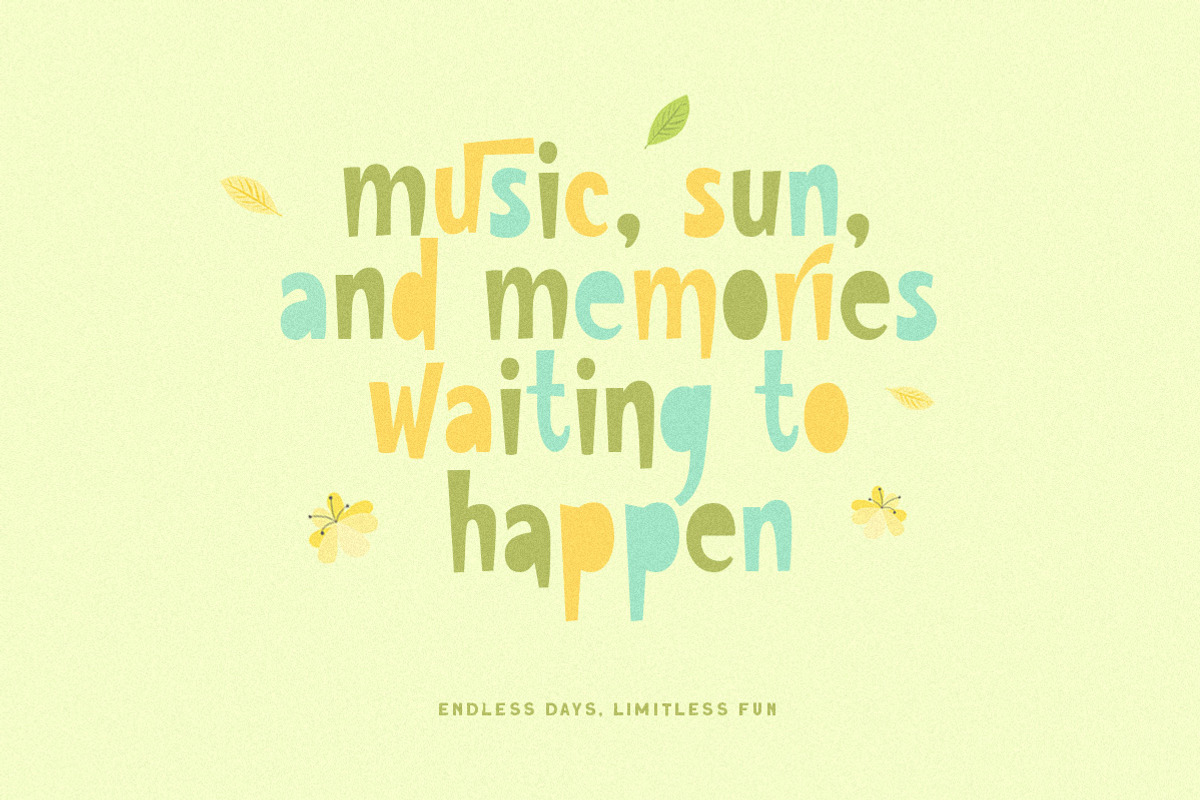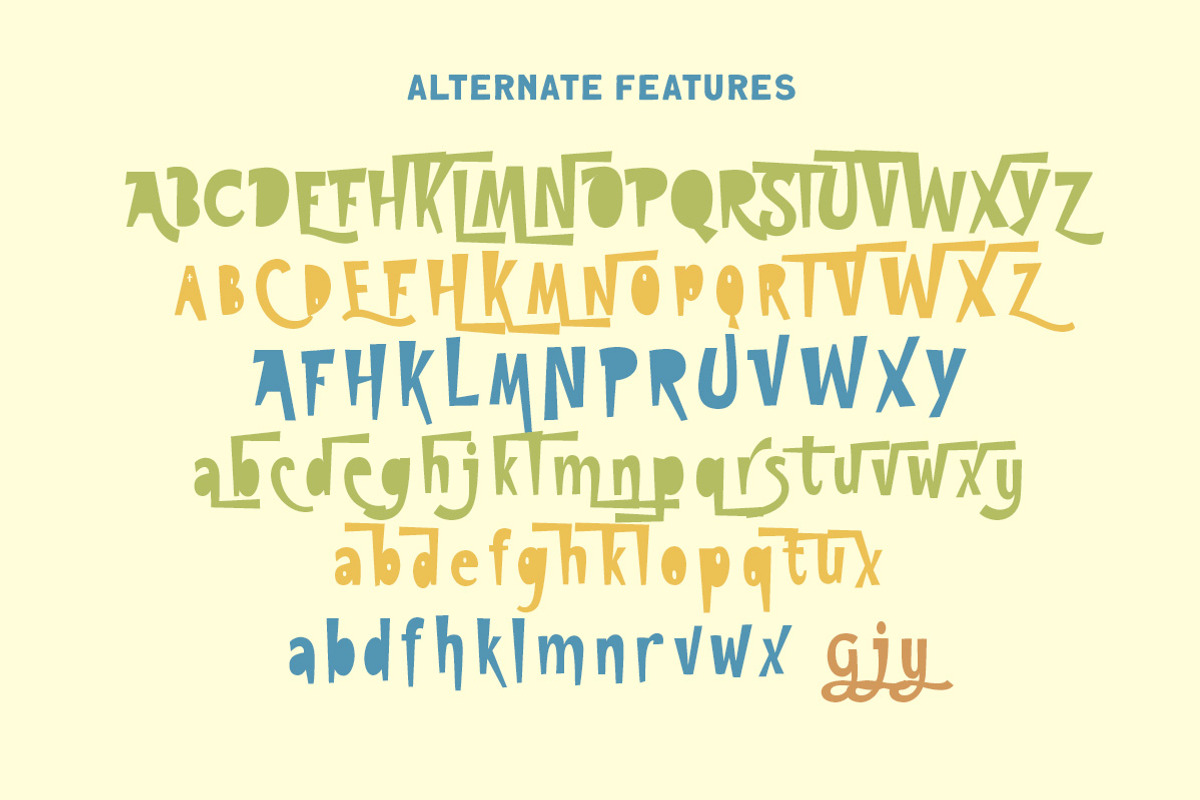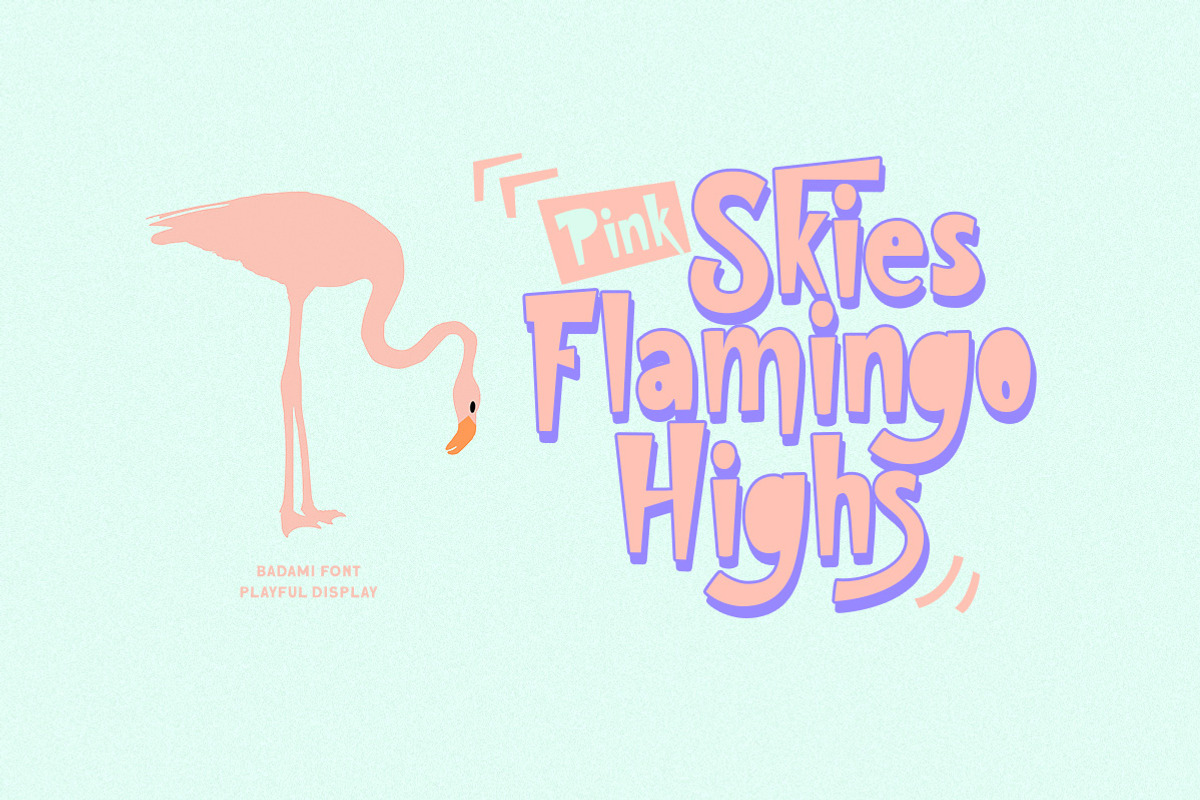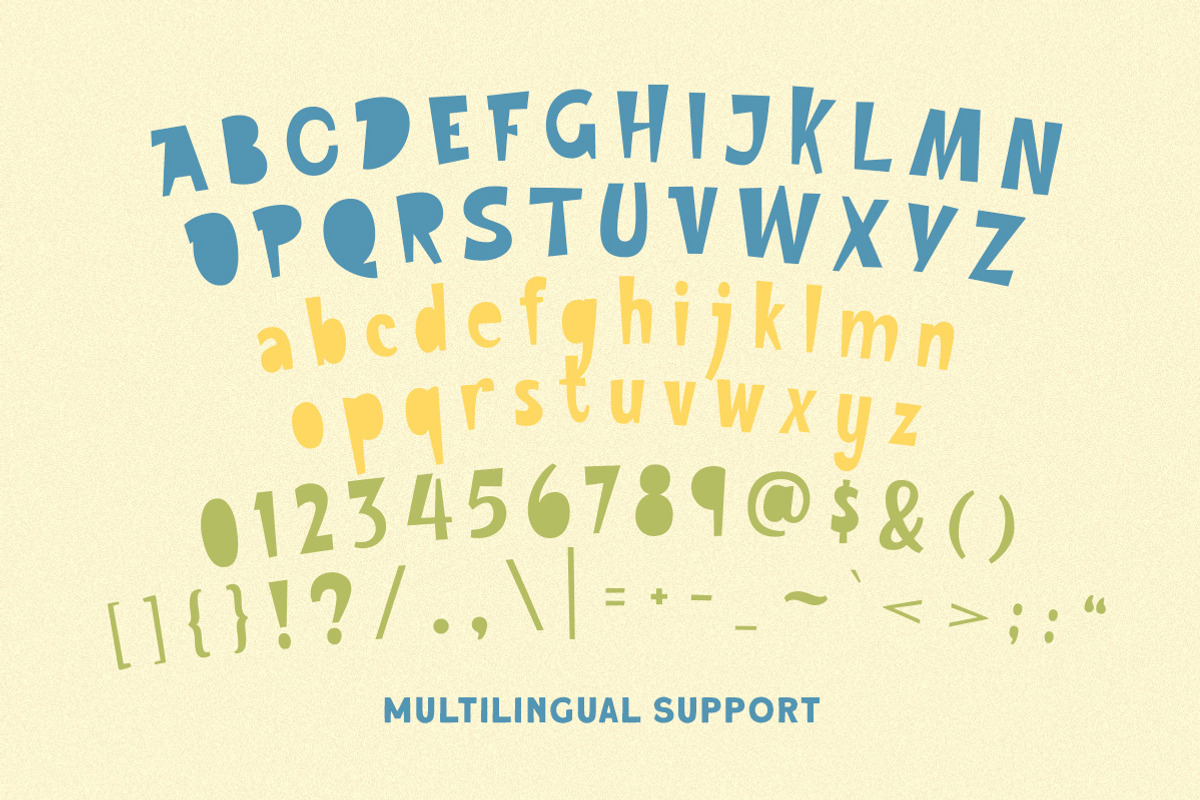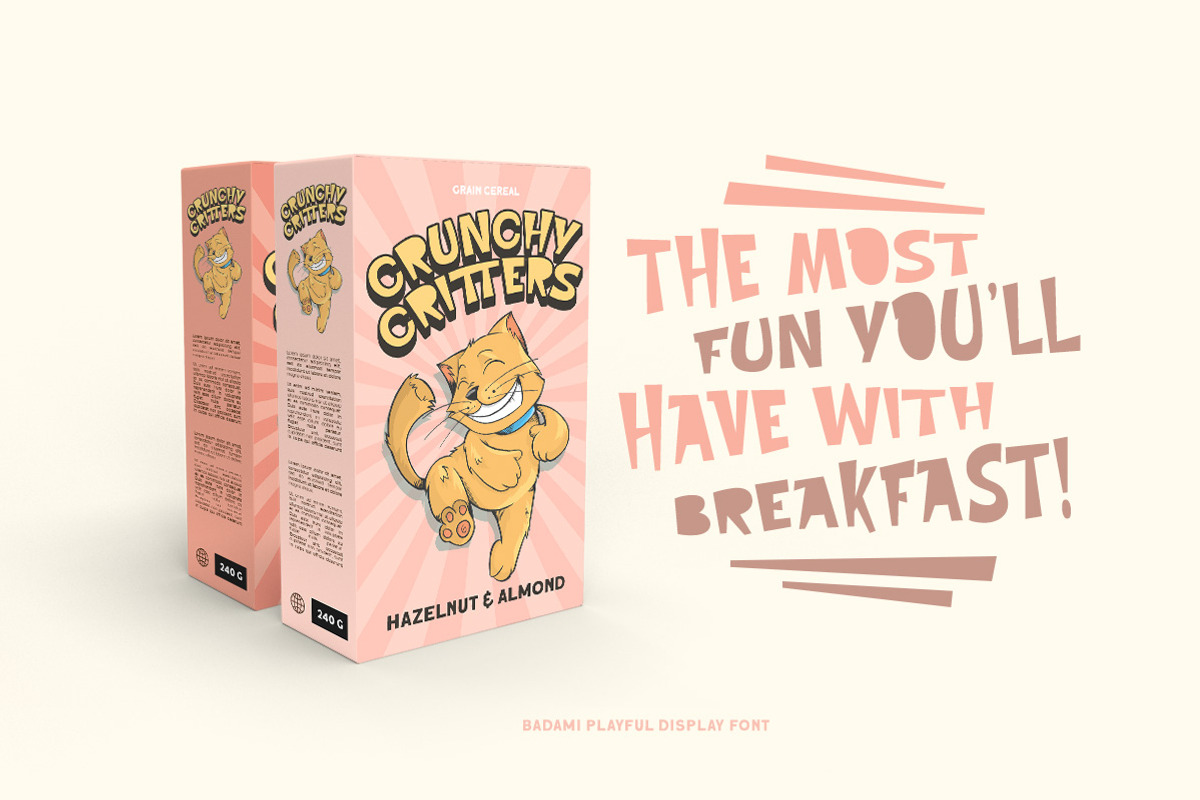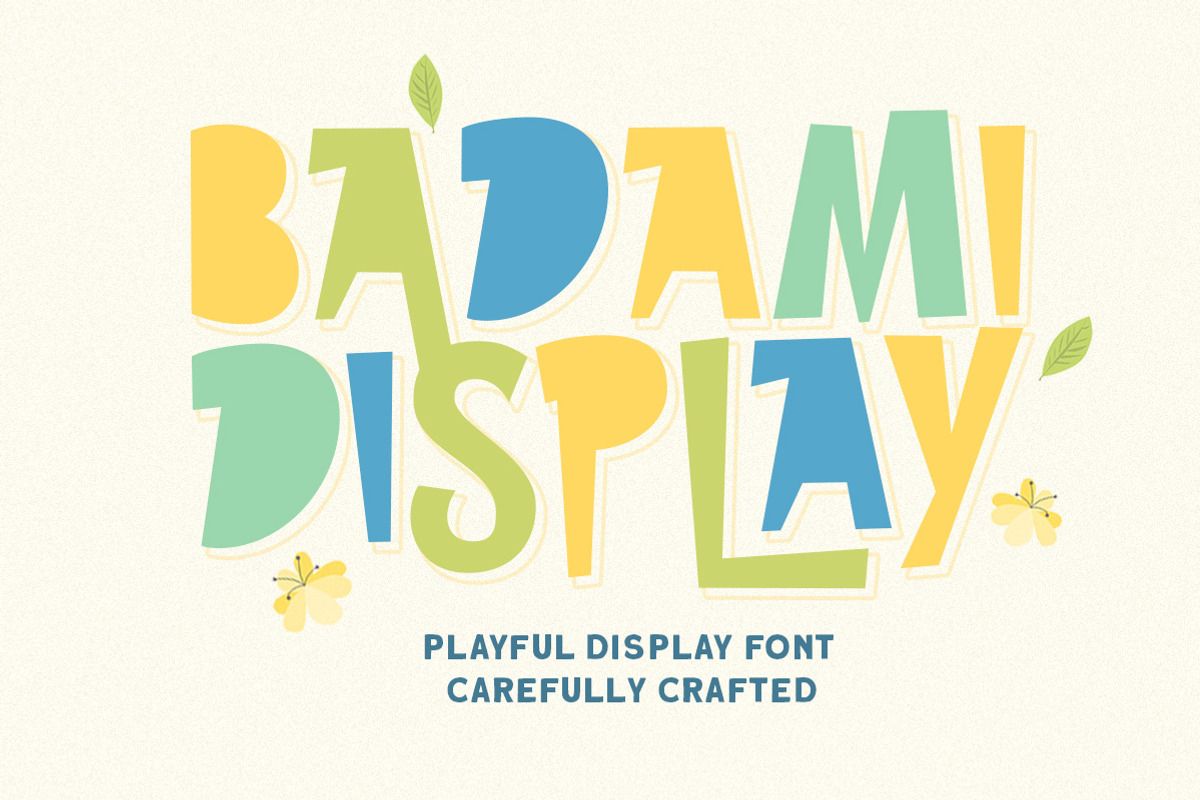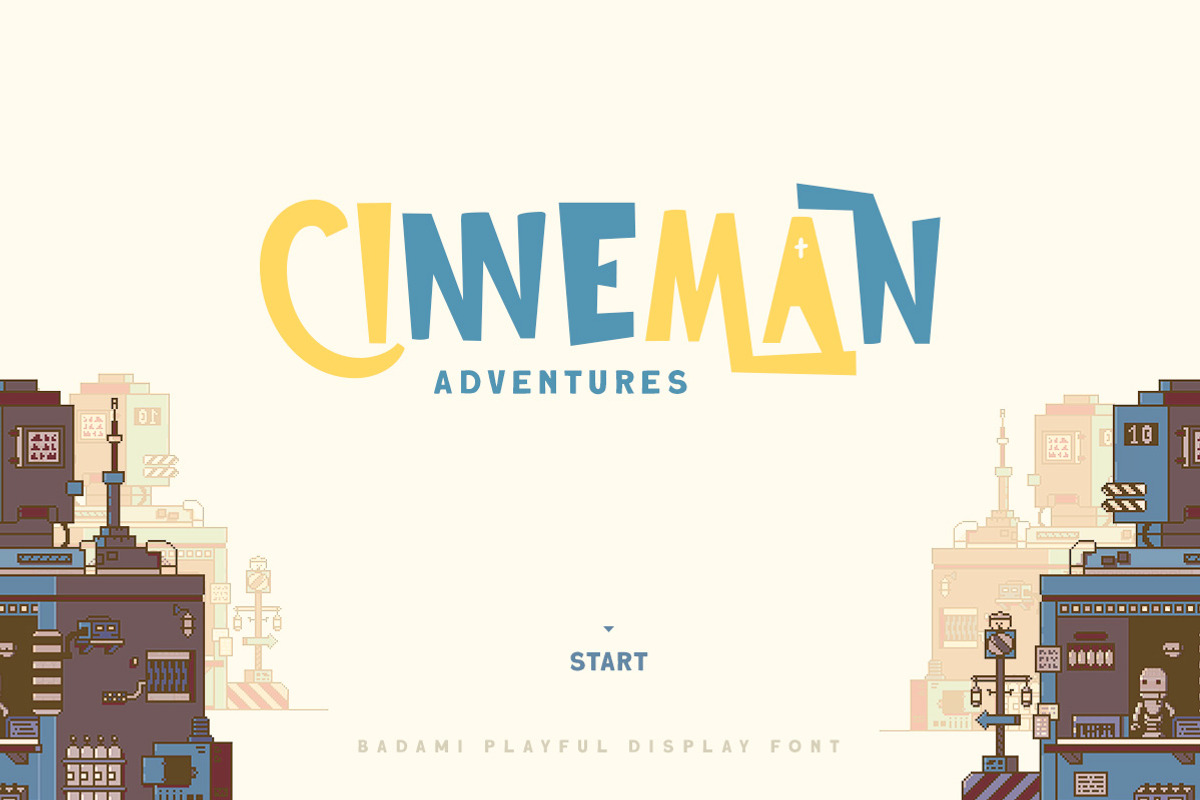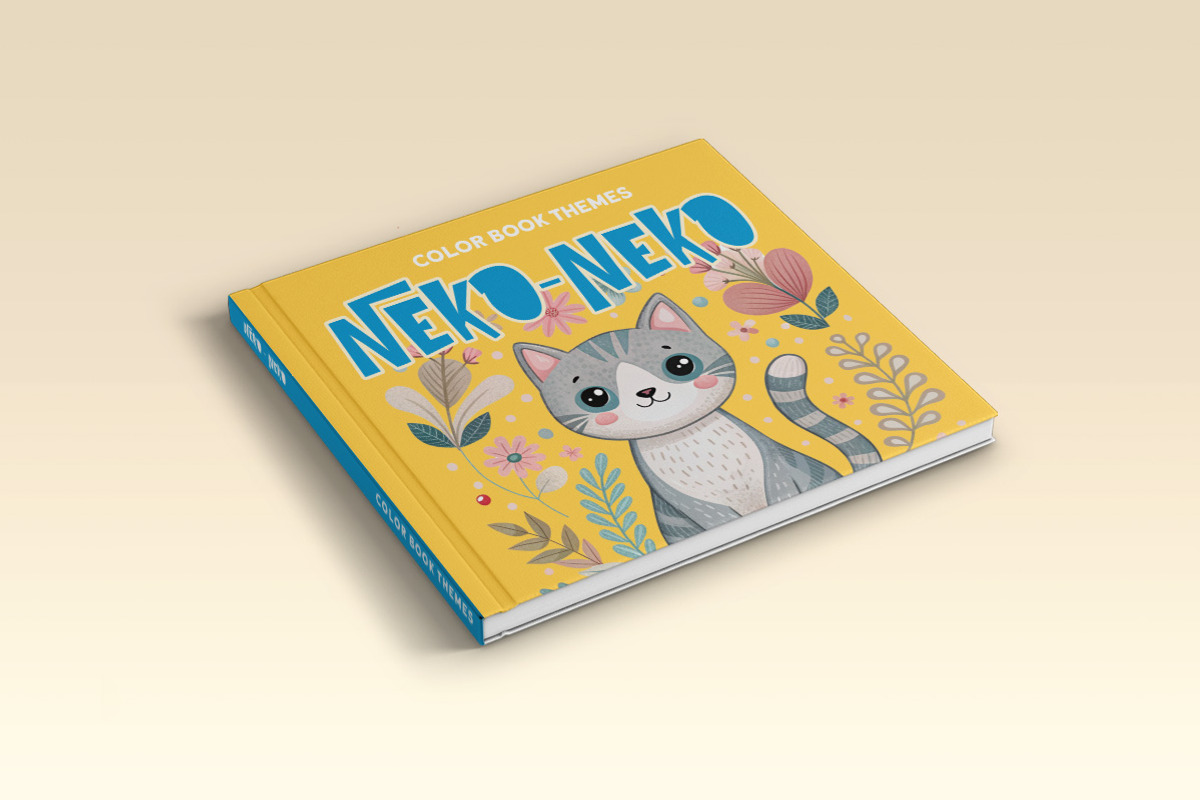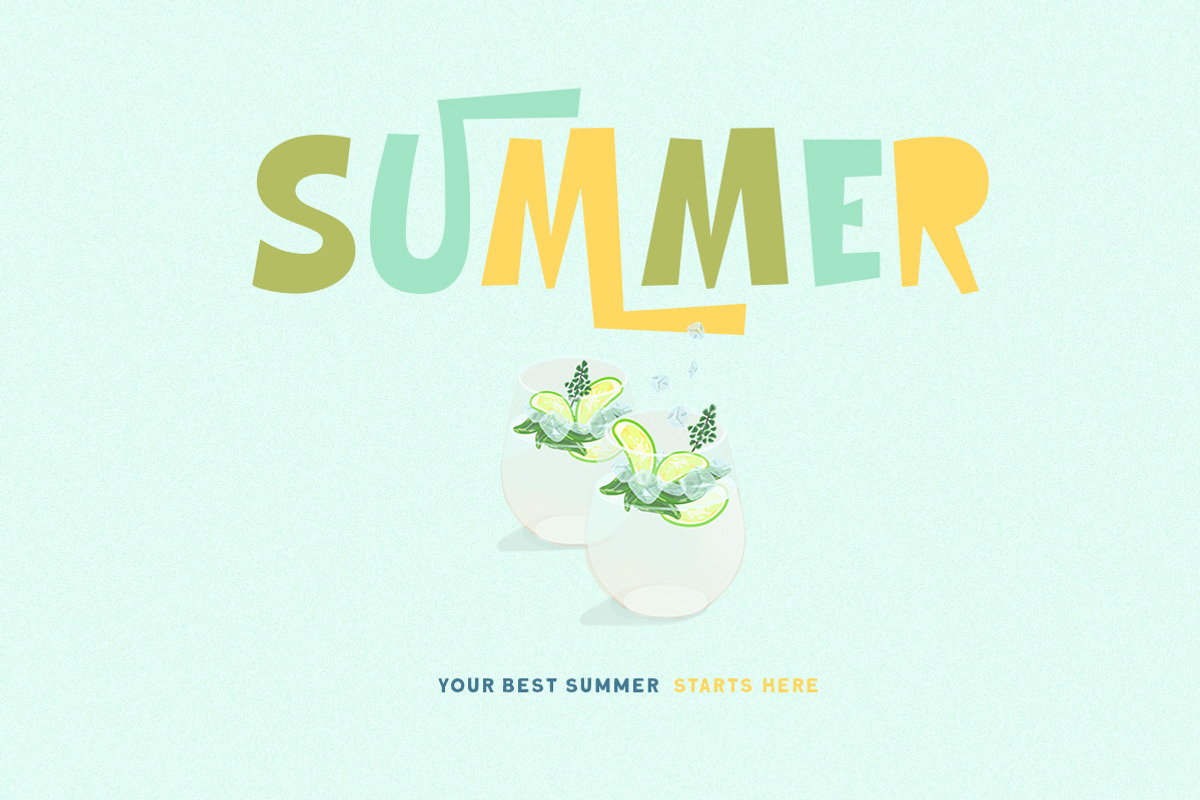
Badami Playful Display
Badami is a brand new display font. You can play around with alternates character. This font perfectly made to be applied especially in logo, and the other various formal forms such as invitations, labels, logos, magazines, books, greeting / wedding cards, packaging, fashion, make up, stationery, novels, labels or any type of advertising purpose.